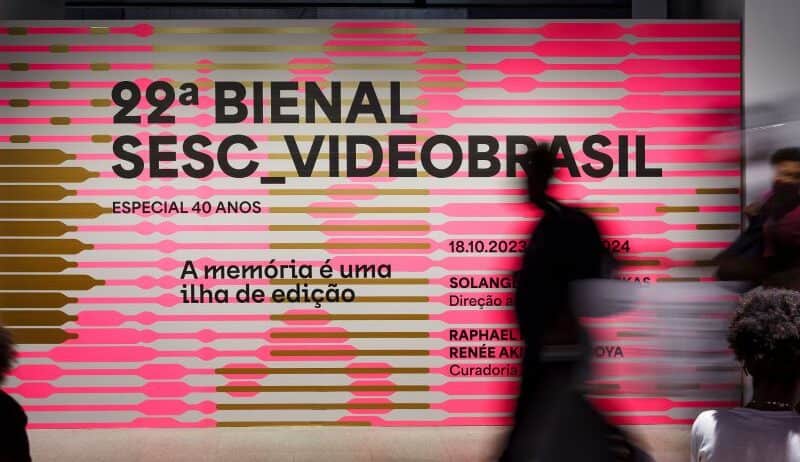
8 high-impact typefaces, make your editorial layouts magazine-ready and more readable
Eight typefaces that make editorial layouts sing, from dependable workhorses to unforgettable display faces.
Transform Your Editorials With Standout Type
As a branding content curator, I prize typefaces that do more than carry text, they shape perception and narrative. This carefully curated list spotlights eight expressive families that balance editorial utility with distinct personality. Each pick is chosen for modular flexibility and variable font advantages. They include cross script support so you can design seamlessly for diverse audiences. Expect practical notes on weights, optical sizes, and inktrap details, plus real world uses that spark creative systems. Read this piece if you want to craft editorial layouts that feel deliberate, timeless and unmistakably yours.
Save hours of font research, let the article shortlist high impact options ready for editorial briefs. From adaptable sans like Big Sans and Area, to engineered text faces like Druto. Each family solves a specific layout tension. Discover high contrast slabs and serifs, modular pixel systems, and multilingual display types that expand narrative scope. The piece blends design critique with actionable guidance, so you can test combinations confidently. If you manage brands, edit long reads, or design covers, these type choices will sharpen hierarchy and amplify voice. Click through for curated examples and download links today.